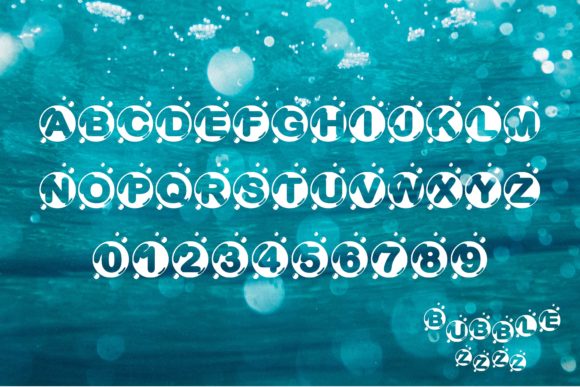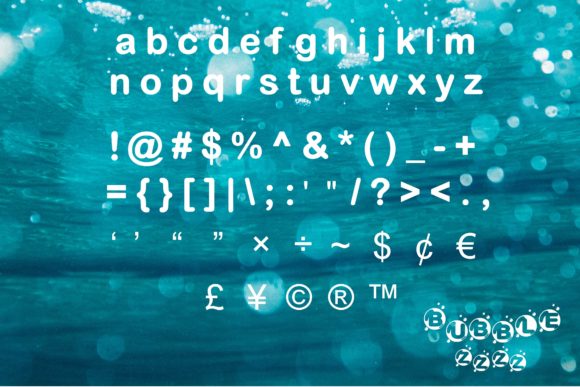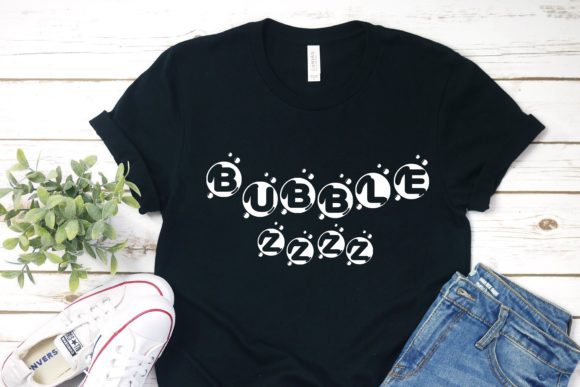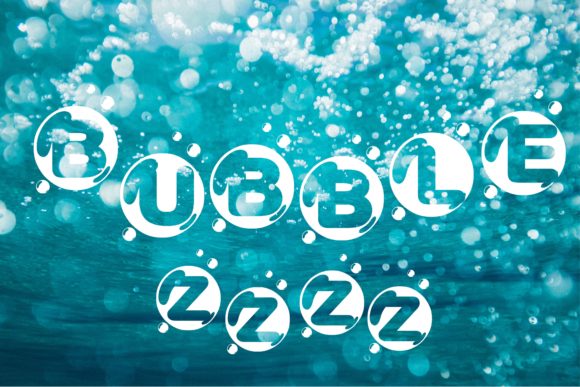
Bubble ZZZ Font: The Ultimate Guide to Adding a Cute and Casual Touch to Your DIY Projects
Are you a designer or crafter looking for a unique and friendly font to elevate your DIY projects? Look no further than the Bubble ZZZ Font! This adorable display font is perfect for adding a playful and casual touch to your designs, and we’re excited to dive into its features, uses, and benefits in this comprehensive guide.
What is Bubble ZZZ Font?
Bubble ZZZ Font is a cute and casual display font that exudes an incredibly friendly feel. Its unique and gorgeous design makes it an excellent choice for designers and crafters who want to add a personal touch to their projects. With its playful and approachable vibe, Bubble ZZZ Font is sure to capture the attention of your audience and leave a lasting impression.
Key Features of Bubble ZZZ Font
• Cute and Casual Design: Bubble ZZZ Font boasts a charming and laid-back design that’s perfect for DIY projects, crafts, and creative endeavors.
• Unique and Friendly Feel: The font’s friendly and approachable vibe makes it ideal for designs that require a personal touch.
• Display Font: Bubble ZZZ Font is a display font, making it perfect for headlines, titles, and other attention-grabbing elements.
• Multipurpose: This font can be used for a wide range of projects, from crafting and DIY tutorials to branding and marketing materials.
Benefits of Using Bubble ZZZ Font
So, why should you choose Bubble ZZZ Font for your DIY projects? Here are just a few benefits of using this amazing font:
• Adds a Personal Touch: Bubble ZZZ Font’s unique design allows you to add a personal touch to your projects, making them stand out from the crowd.
• Enhances Readability: The font’s clear and playful design ensures that your text is easy to read, even at smaller sizes.
• Versatile: Bubble ZZZ Font can be used for a wide range of projects, from digital designs to print materials.
Creative Ways to Use Bubble ZZZ Font
Now that we’ve covered the features and benefits of Bubble ZZZ Font, let’s explore some creative ways to use it in your DIY projects:
• DIY Tutorials: Use Bubble ZZZ Font to add a playful touch to your DIY tutorials, crafting instructions, and recipe cards.
• Branding and Marketing: This font is perfect for creating eye-catching logos, business cards, and social media graphics.
• Crafting and Scrapbooking: Add a personal touch to your scrapbooking and crafting projects with Bubble ZZZ Font.
• Digital Designs: Use this font to create stunning digital designs, including website headers, email newsletters, and social media posts.
Tips for Getting the Most Out of Bubble ZZZ Font
To get the most out of Bubble ZZZ Font, here are a few tips to keep in mind:
• Experiment with Sizes and Colors: Don’t be afraid to experiment with different sizes and colors to find the perfect combination for your project.
• Pair with Other Fonts: Bubble ZZZ Font pairs well with other fonts, so feel free to get creative with font combinations.
• Use for Headlines and Titles: This font is perfect for headlines and titles, so use it to grab attention and add visual interest.